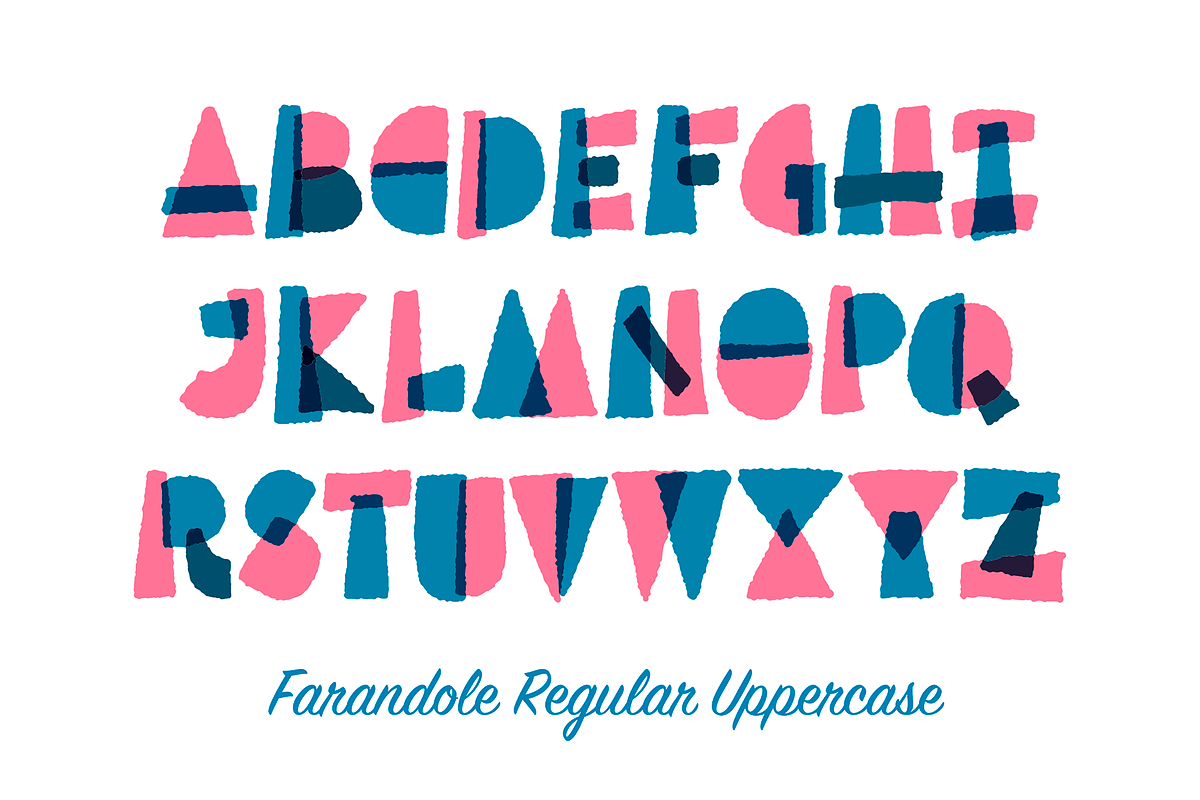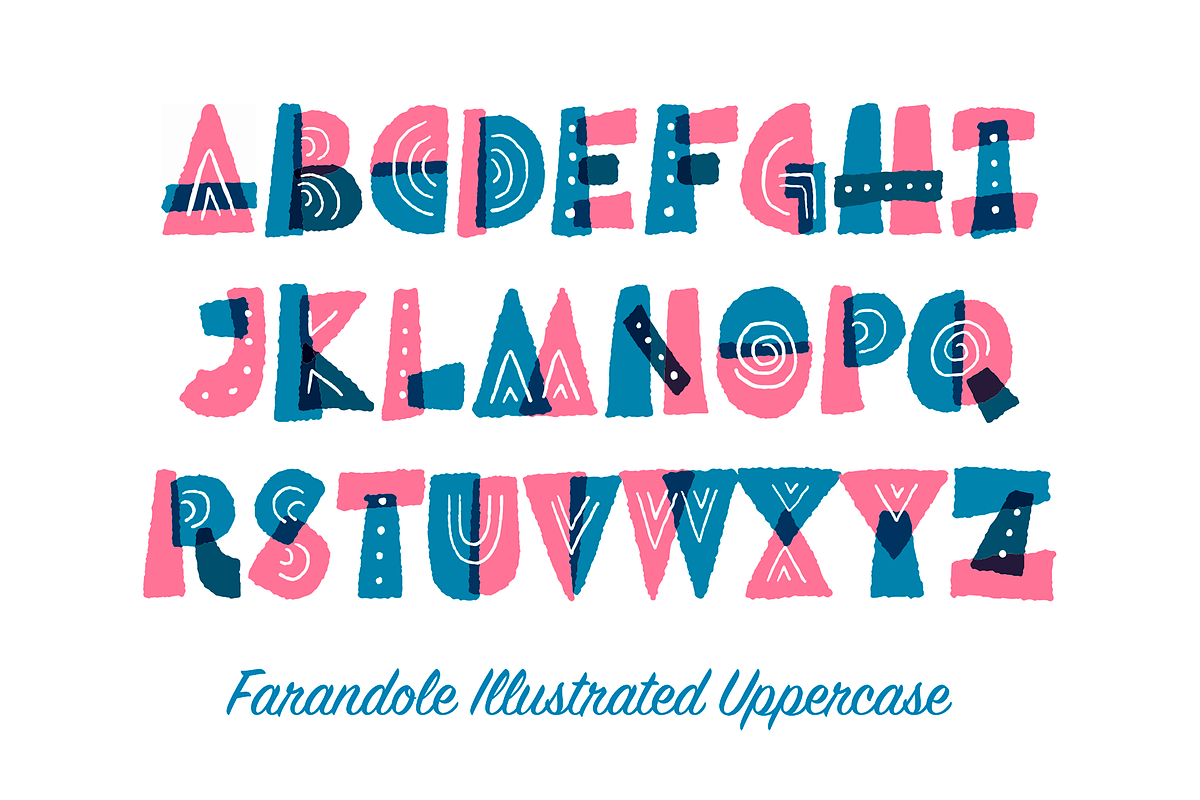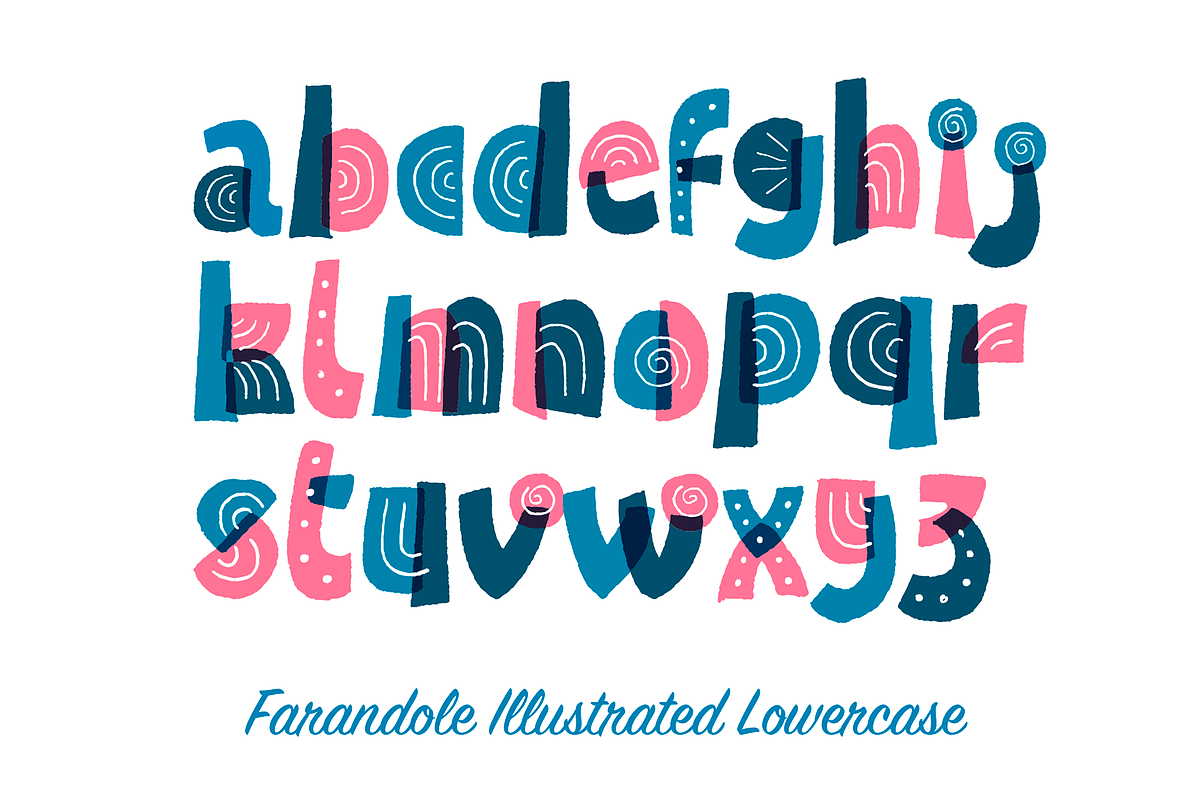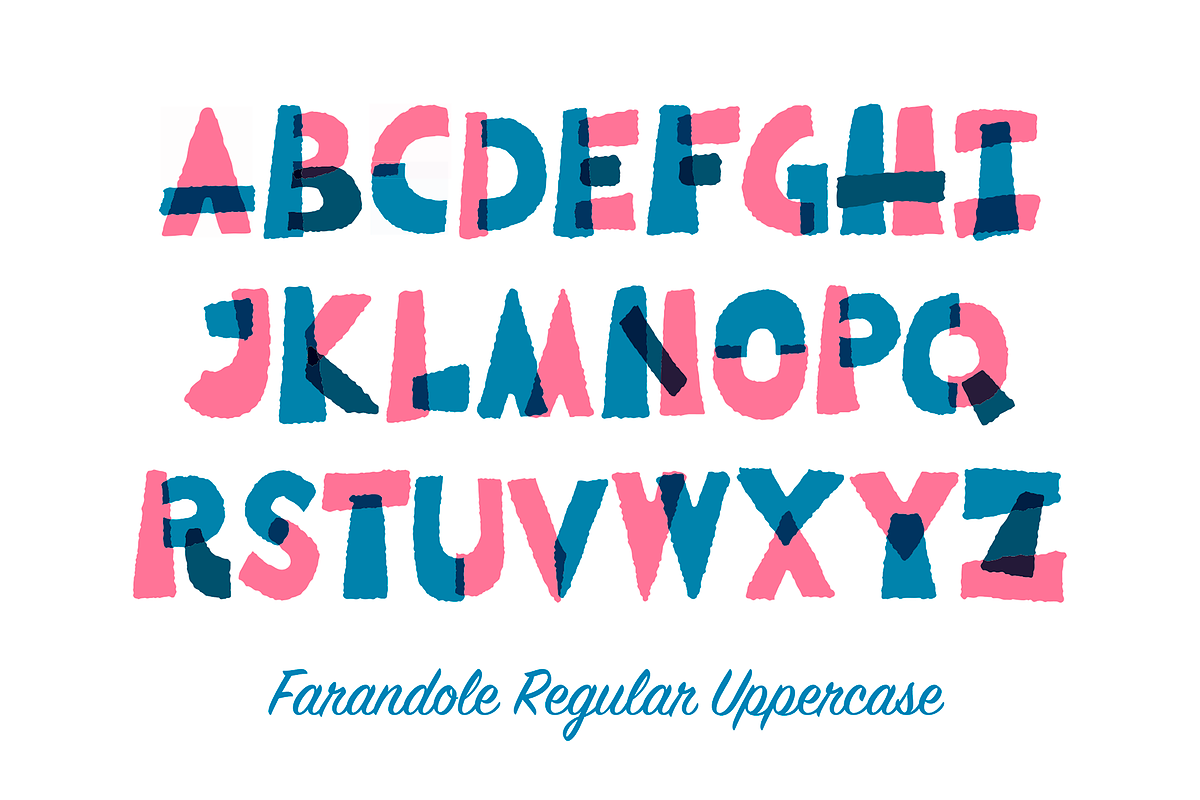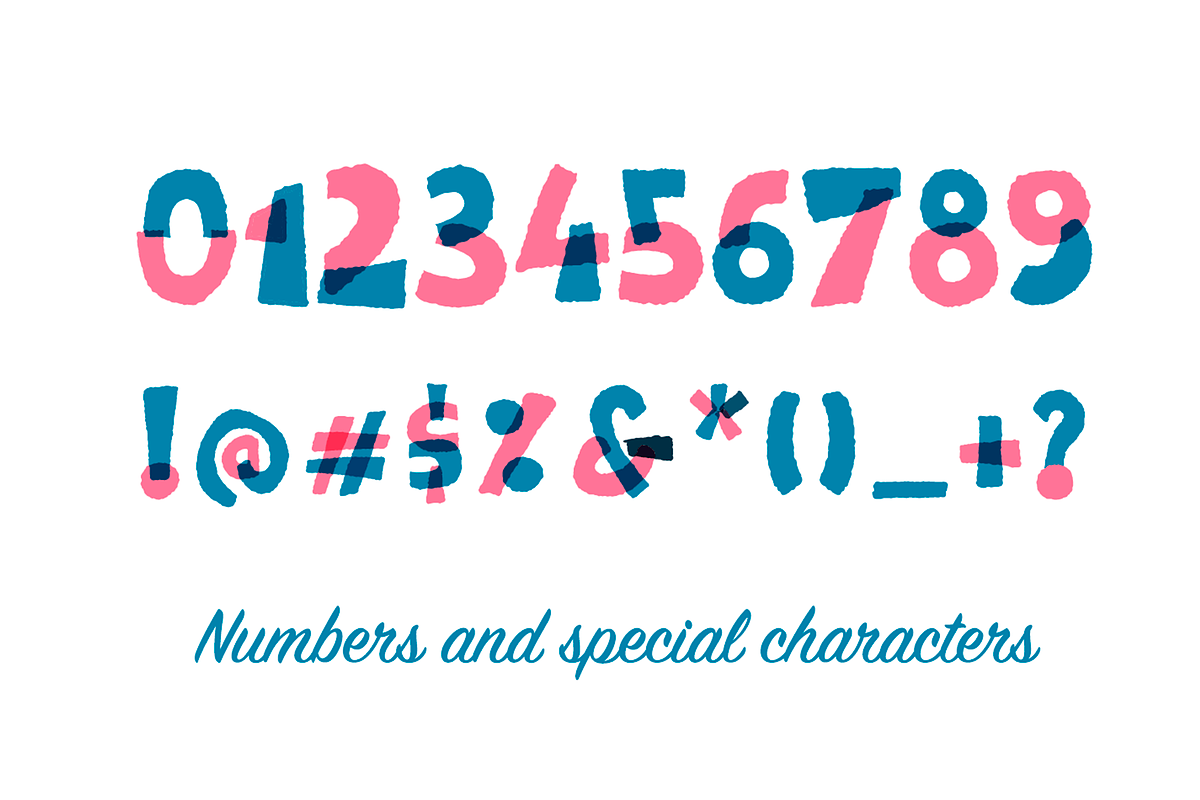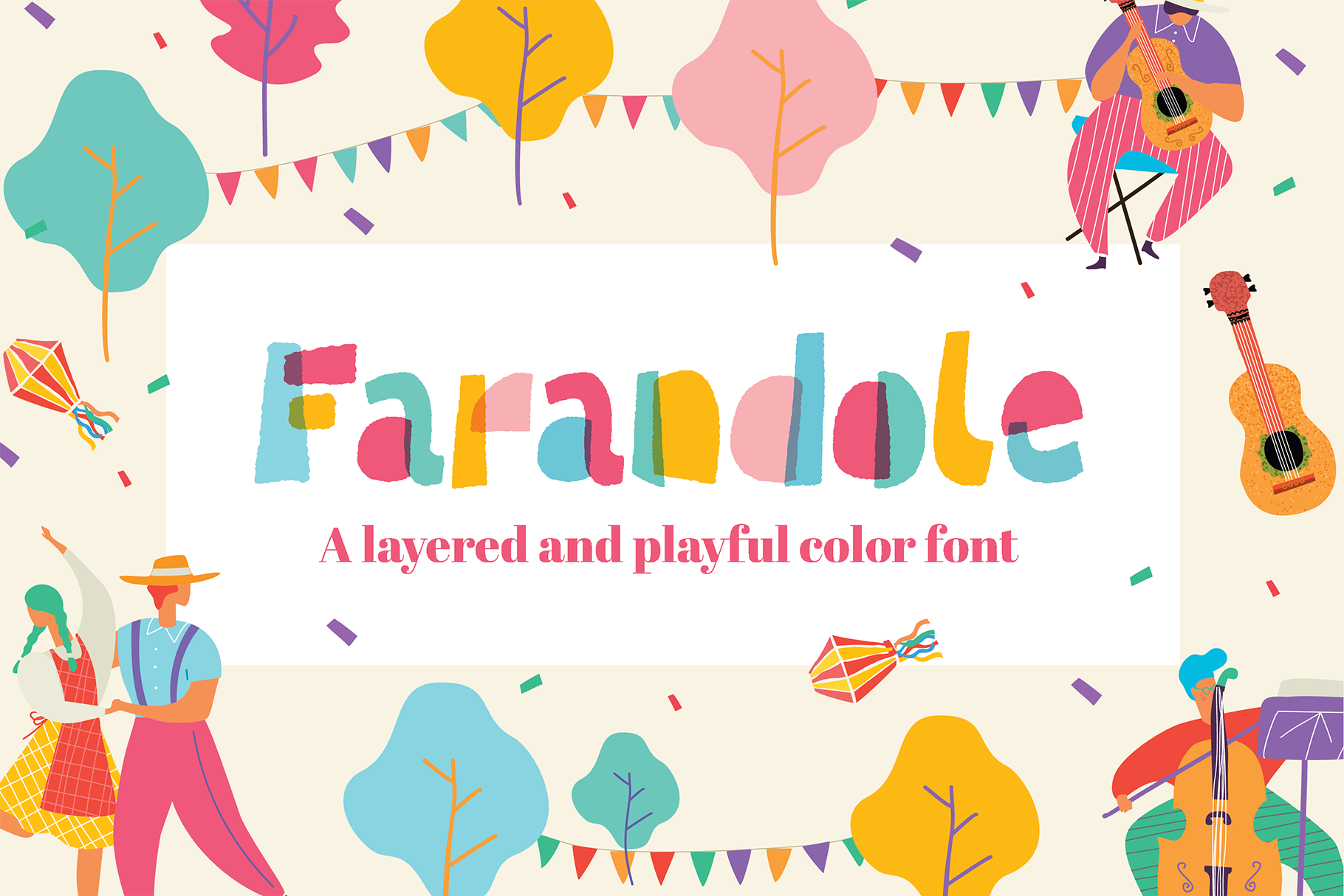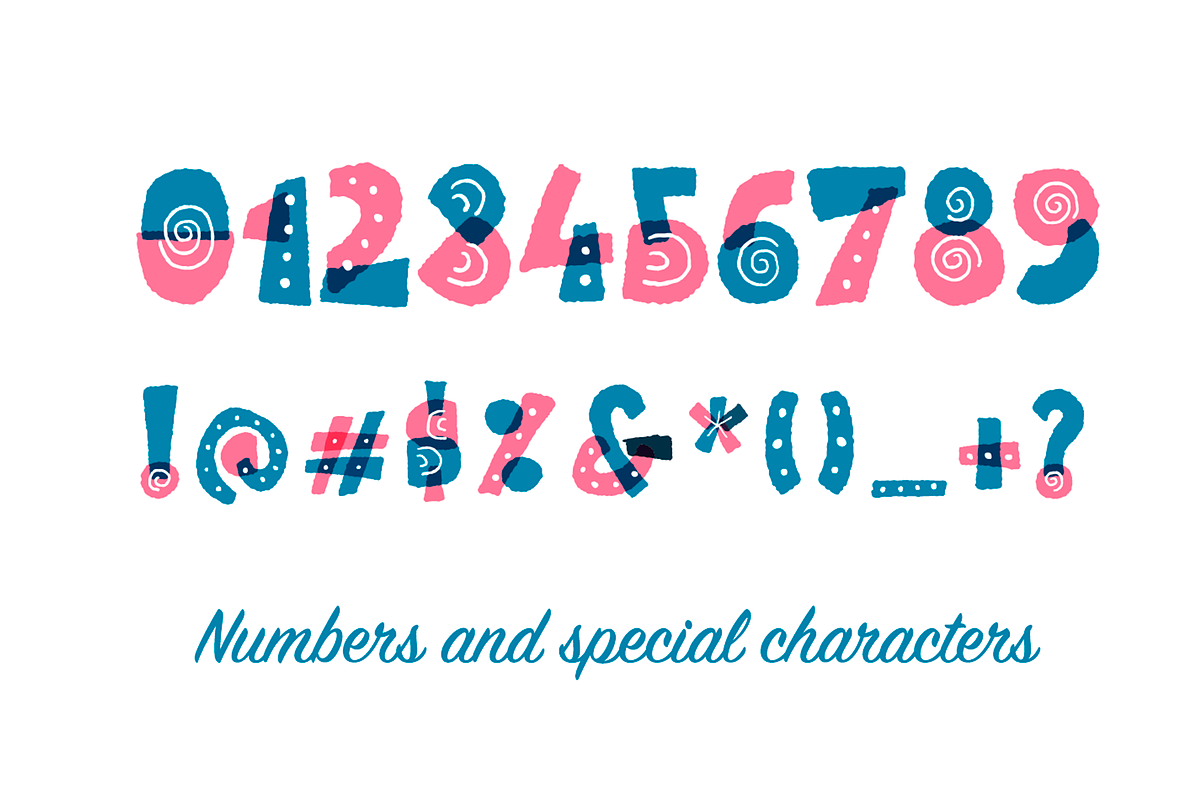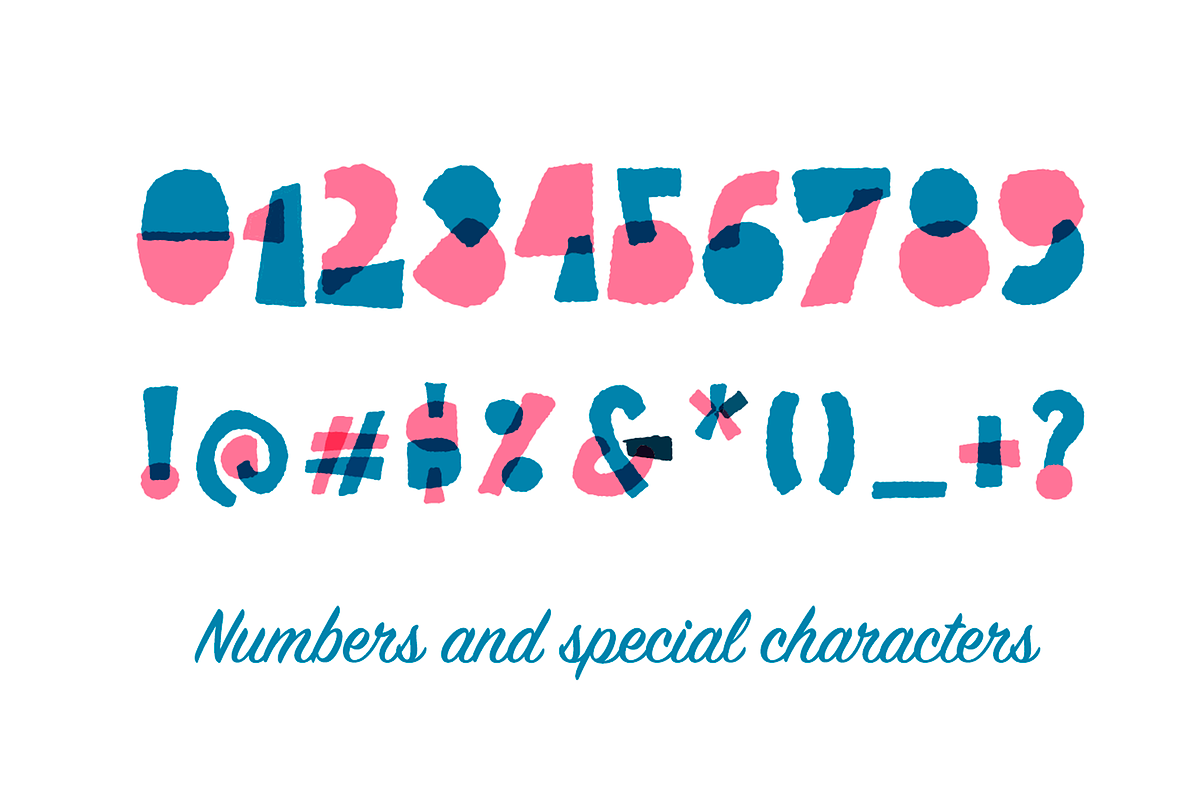
Farandole is a layered and color font inspired by Mid Century Modern Design. It was created with the idea to mix shapes and letters, texture and overlapping. It can be used in many situations, just like modern and fancy packages but also everything related to children.